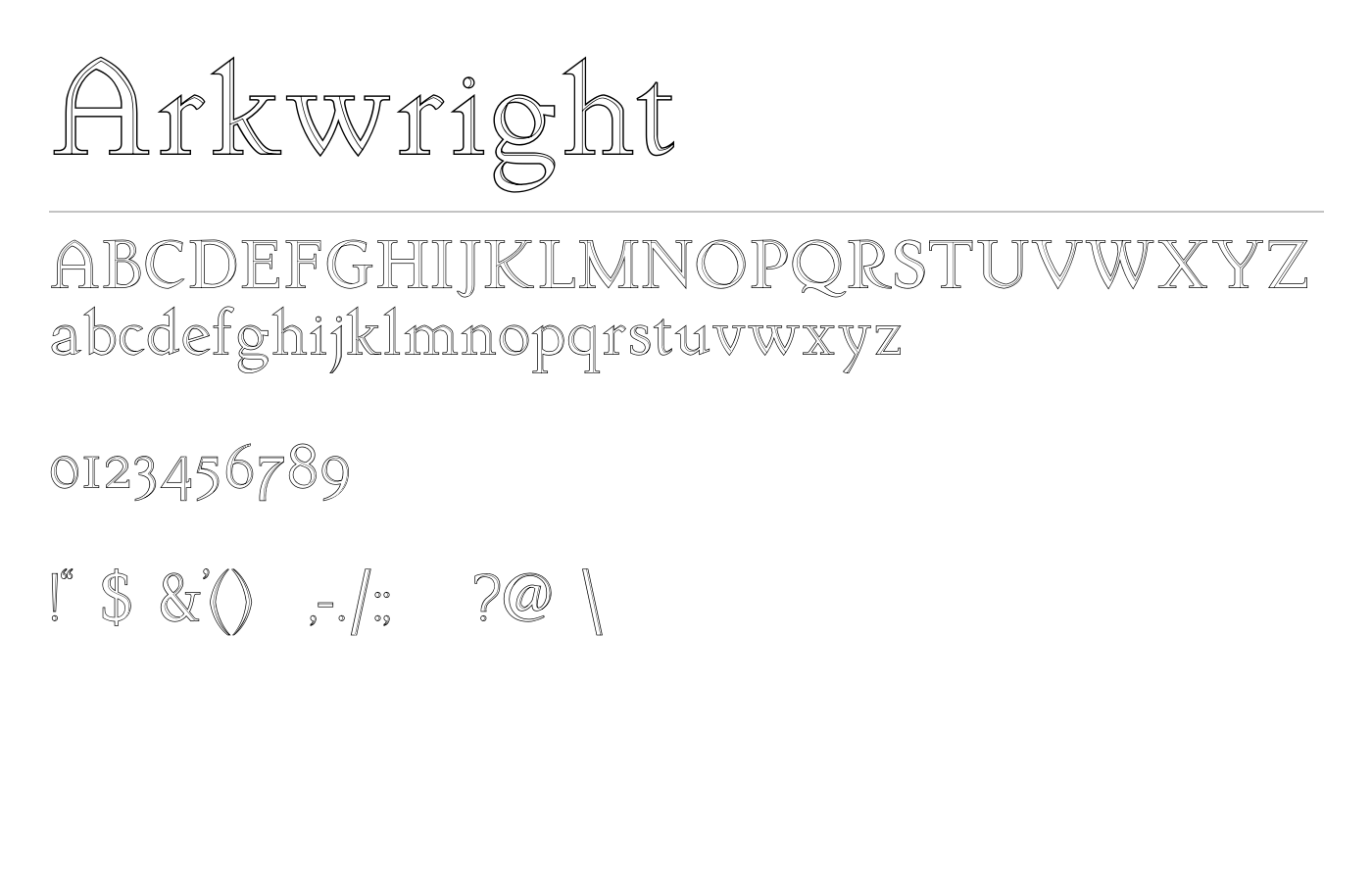
Arkwright is a refined serif font that blends classic elegance with a distinctive geometric touch, featuring high contrast strokes and crisp, bracketed serifs. Its tall x-height and slightly condensed letterforms give it a sophisticated yet approachable feel, making it perfect for upscale branding, editorial headlines, and stylish packaging that call for a timeless, vintage-inspired look with modern clarity.
Arkwright Font
About Arkwright Font
| Font family | Arkwright Font |